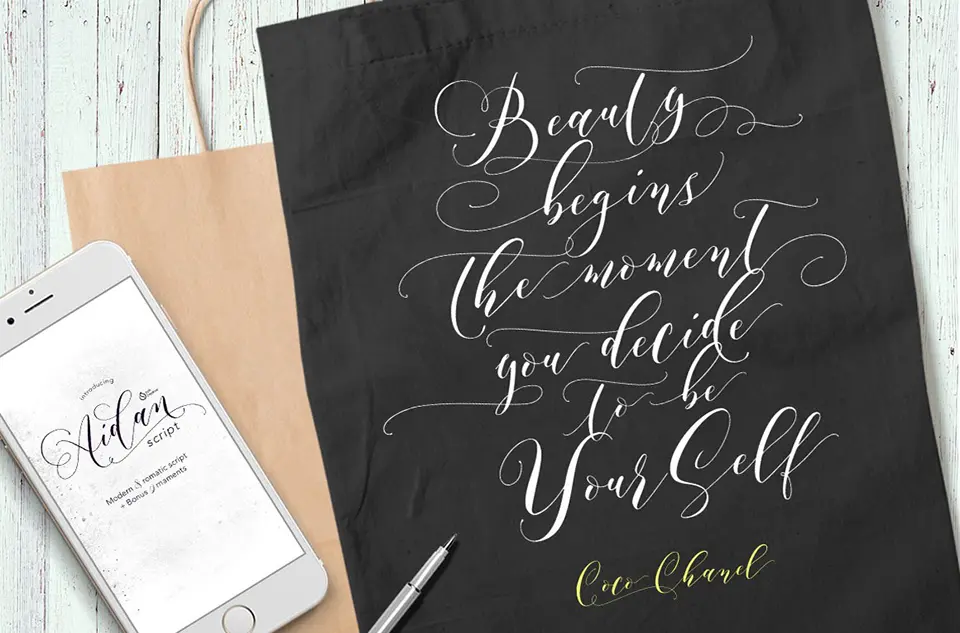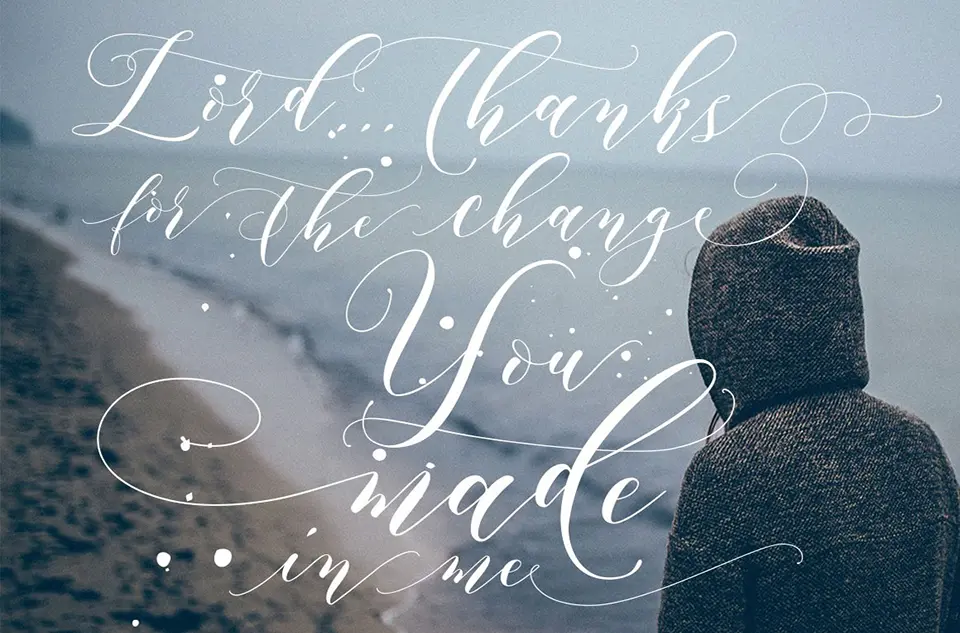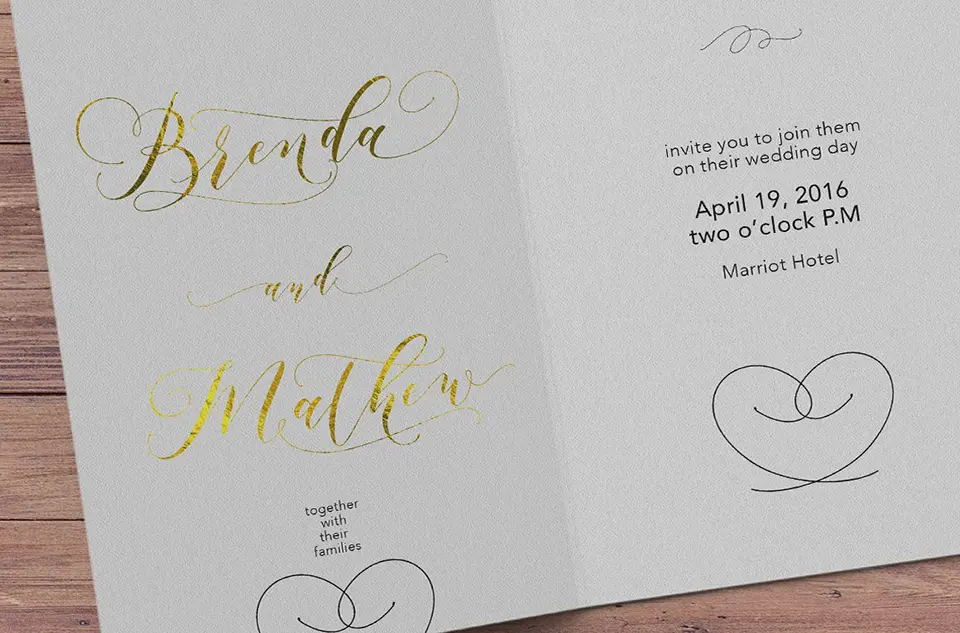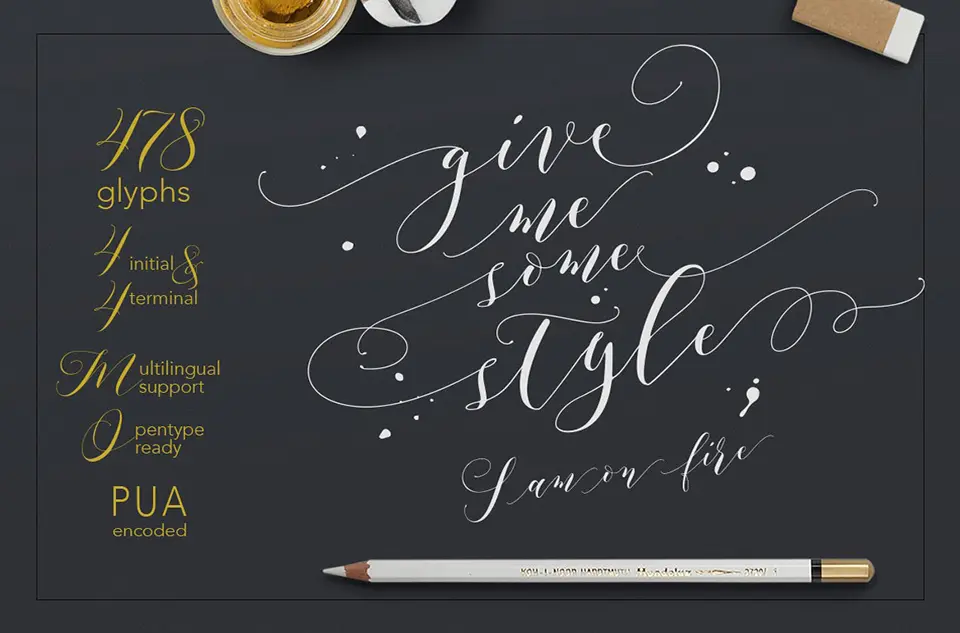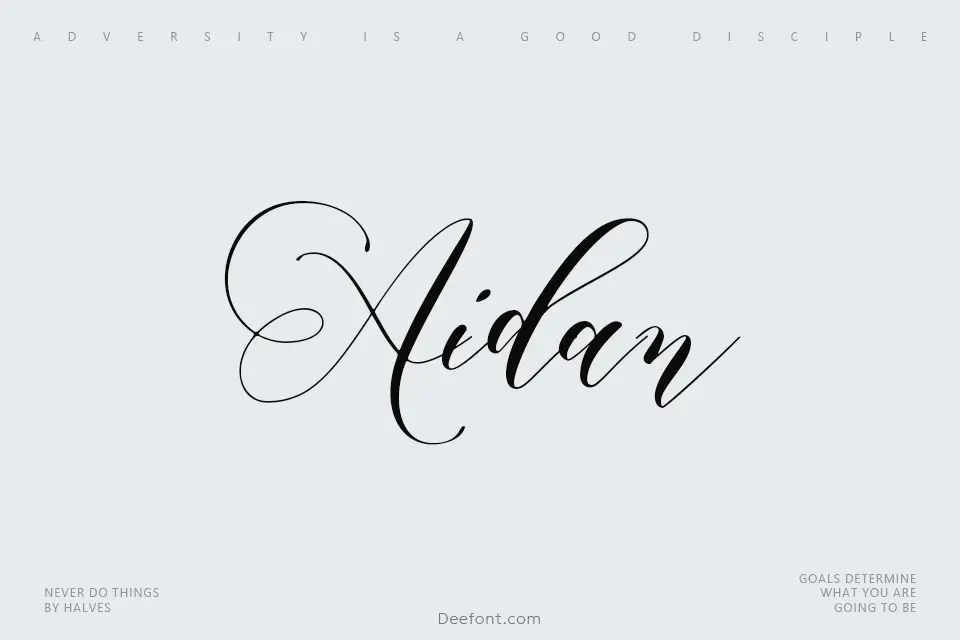
Aidan Font
Aidan is a modern copperplate calligraphy with a romantic and dramatic movement. It suitable for wedding invitation, greeting cards, watercolor based design, or anything that need natural feeling to put on to.